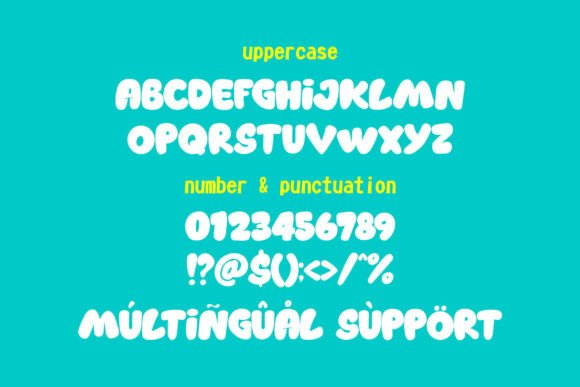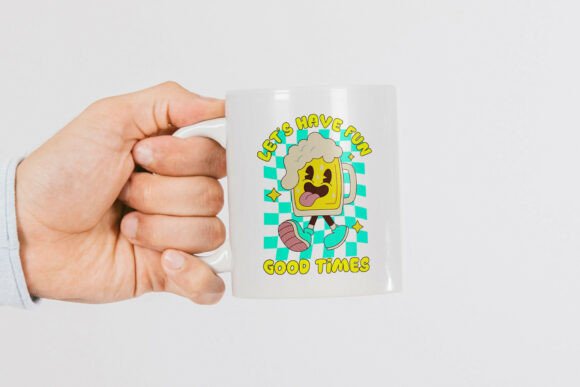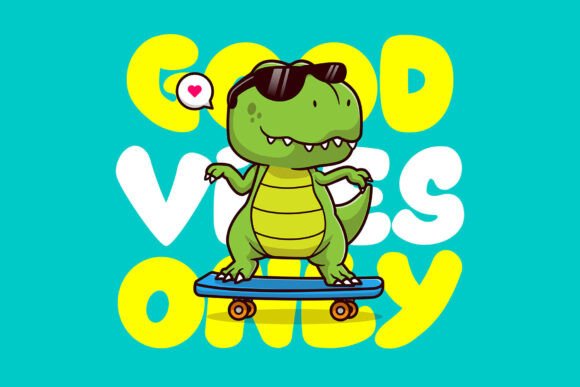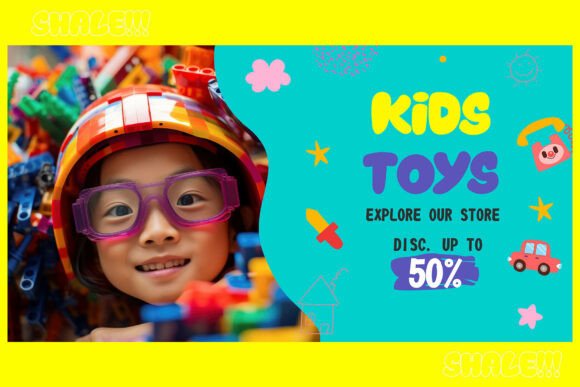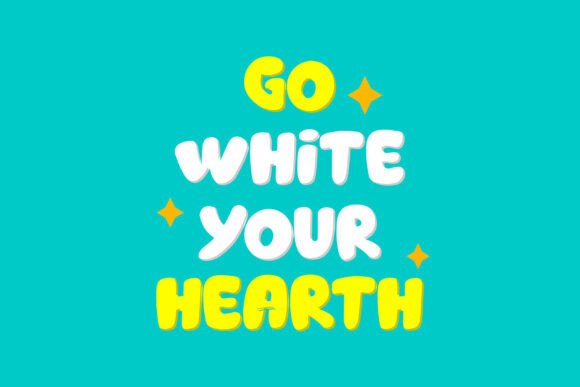
Introduction to Chubby Popz Font Font
Fonts play a crucial role in design, and the Chubby Popz Font font is a typeface that brings both character and versatility to any project. Whether you’re working on a branding project, a website, or a print design, the Chubby Popz Font font offers a unique style that can elevate your work.
| 👤 Author | Cikareotype |
Infuse your designs with exuberance and a playful personality with our delightful Chubby Popz font.
Drawing inspiration from vibrant pop art aesthetics, enjoyable cartoon narratives, and contemporary children-oriented typography, Chubby Popz features pleasantly round and weighty shapes for a truly inviting and jovial feel This full-bodied font stands out boldly, making it perfect for headline content and displays that demand attention, even at a distance.
Key Features of Chubby Popz Font Font
Why Choose Chubby Popz Font Font?
The Chubby Popz Font font is more than just a typeface – it’s a design tool that helps you communicate your message with style and clarity. Its unique character set and versatile design make it suitable for a wide range of applications, from elegant invitations to bold headlines.
With its carefully crafted letterforms and balanced proportions, the Chubby Popz Font font ensures readability and visual appeal across all mediums.
What makes Chubby Popz Font font special?
The Chubby Popz Font font stands out with its unique design, exceptional readability, and versatility across various design applications.